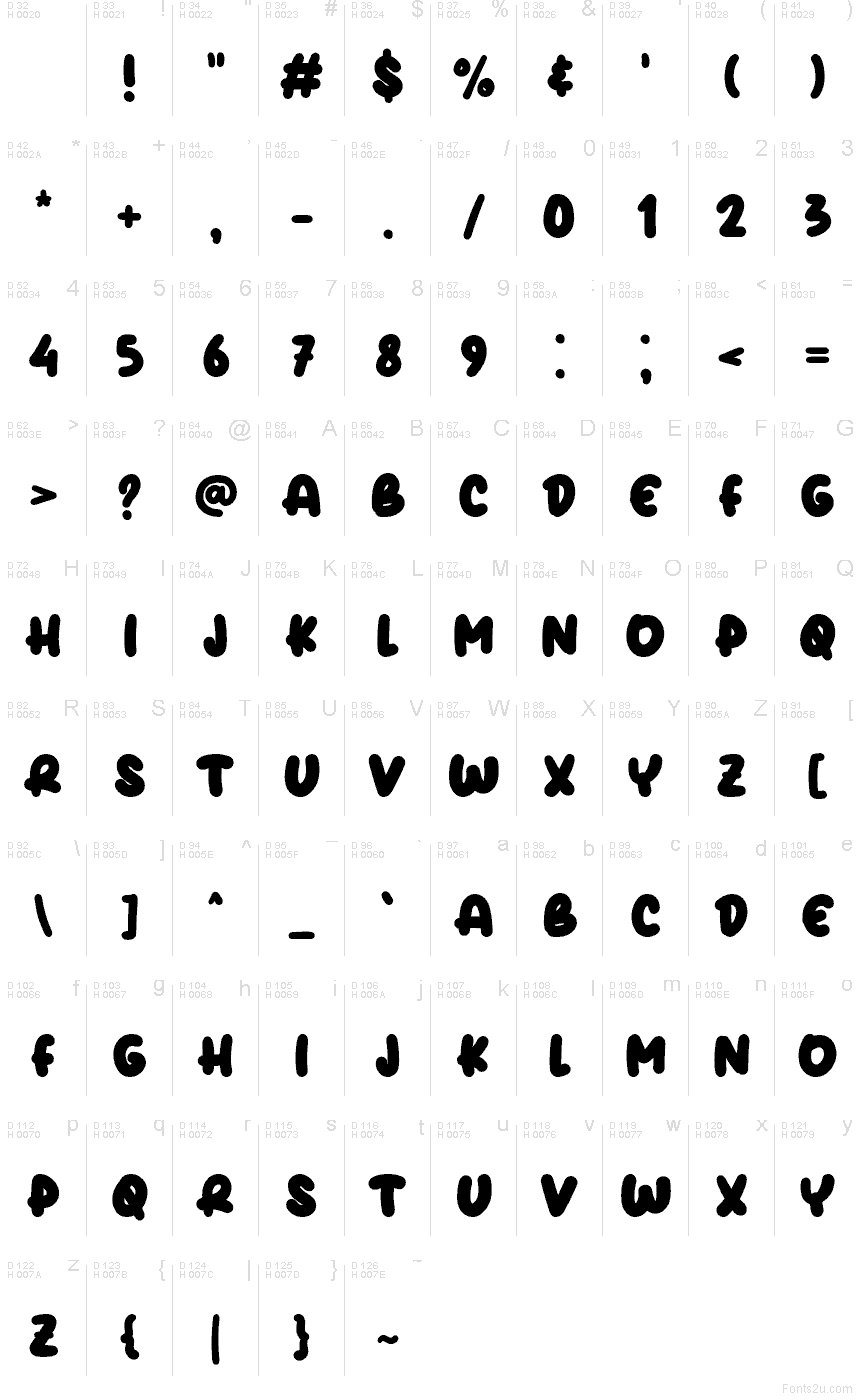
Pinky Burst font by DM Letter Studio - Dimas Prasetyo is a free cartoon display typeface with a bold, inky, almost bubble-gum feel. The chunky, rounded shapes look like they’ve been drawn with a thick marker, giving every word a bouncy, hand-crafted energy. Slightly irregular curves keep it playful and expressive, so headlines feel like they’re popping off the page rather than sitting flat on it.
Using Pinky Burst, this free font shines on kids’ book covers, birthday invitations, toy packaging, posters for festivals, snack branding, and cheerful social media graphics. Its solid forms stay legible even at smaller sizes, but it really comes alive when you go big and loud. Pair it with a clean, light sans serif for body text to let the bubbly letters take center stage without overwhelming your layout.